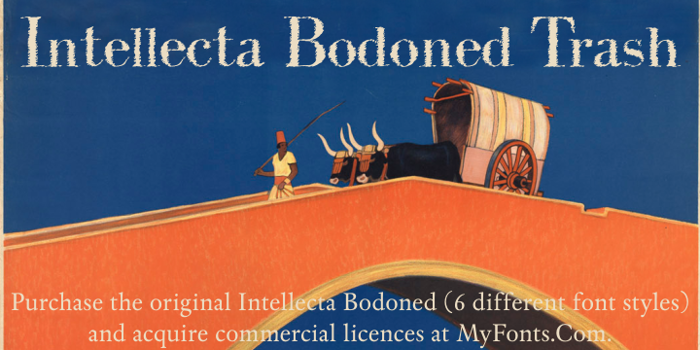
IntellectaBodoned Trash Font
Intellecta Bodoned Trash, by Intellecta Design
Intellecta Bodoned Trash has different set style, unpublished, than the the original font, to use as free personal ideas, non-commercial.